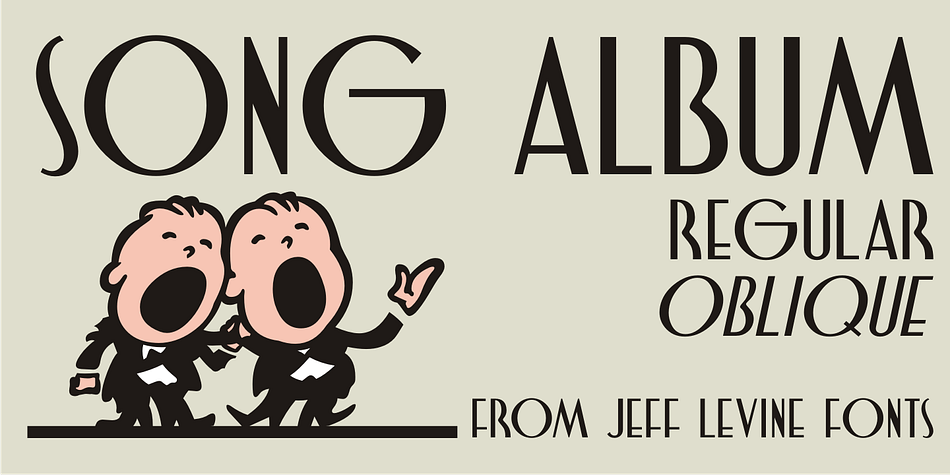
Designed by Jeff Levine, Song Album JNL is a display sans and art deco font family. This typeface has two styles and was published by Jeff Levine Fonts.
In the days when sheet music was as popular as phonograph records for home entertainment, a song album was a folio of collected works. The hand-lettering on the 1940s-era cover for “The Sigmund Romberg Song Album, Book II” served as the model for Song Album JNL. Romberg was a noted composer of Broadway show tunes.